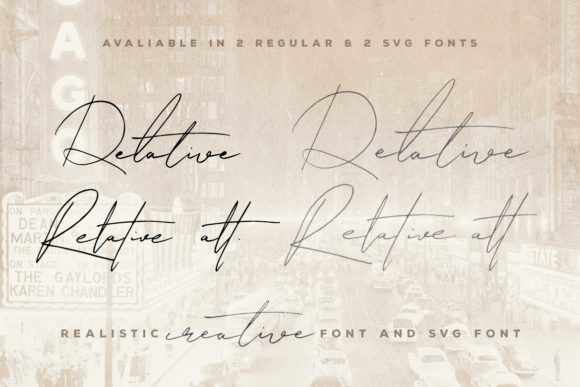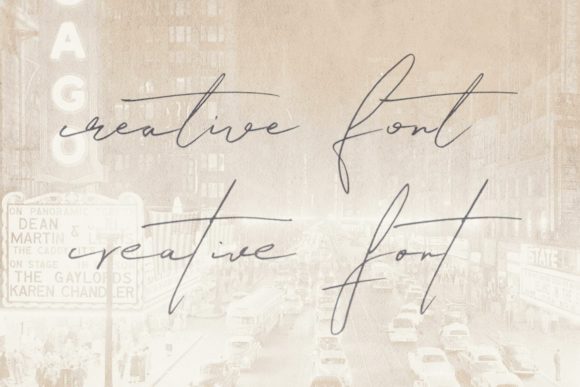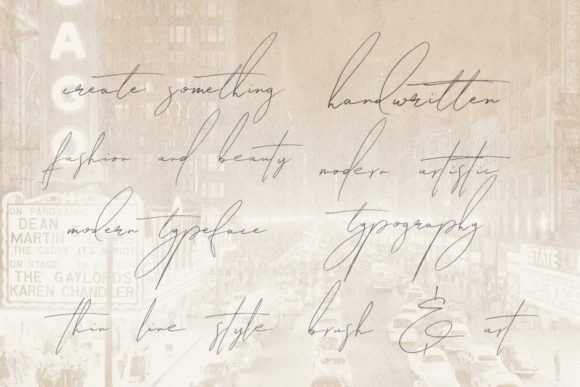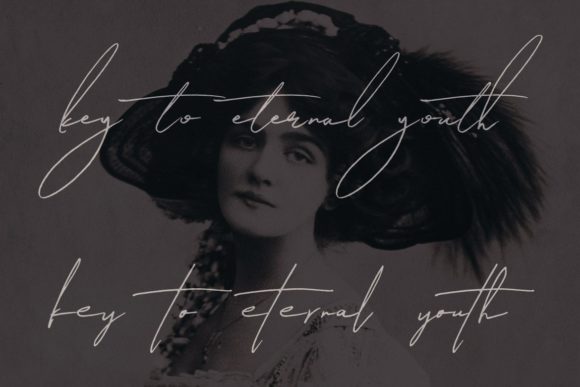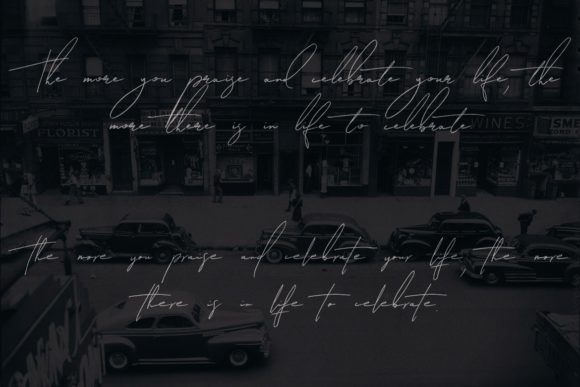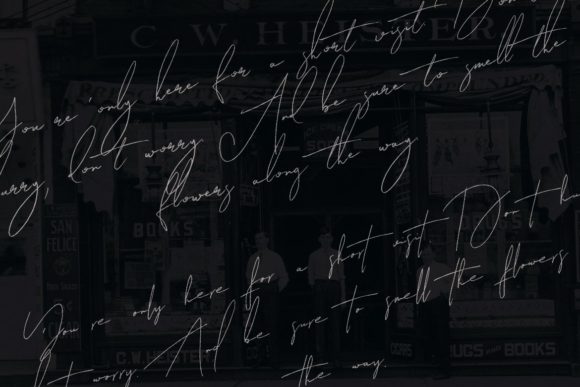
Introduction to Relative Font
As a designer, have you ever found yourself staring at a blank canvas, searching for that perfect touch to bring your creative project to life? The right font can make all the difference, and that’s where Relative Font comes in – a stunning handwritten font that’s sure to elevate your design game.
With its light feel and effortless charm, Relative Font is the perfect addition to any design resource. Whether you’re working on a free download or a high-end commercial project, this versatile font is sure to add a contemporary twist that will leave your audience in awe.
Key Features of Relative Font
- High-quality, vector-based design with transparent background, ideal for creative projects
- Resolution-independent vector design, suitable for use at any size without compromising quality
- Unique, hand-drawn style that adds a touch of personality to any design, perfect for creative projects
- High-resolution design (up to 300 DPI), ensuring crisp and clear details in print and digital applications
- Easy to customize and edit, allowing for seamless integration into your design workflow
Honest Review: Relative Font
As a designer, I’m always on the lookout for high-quality design resources to elevate my creative projects. Relative Font caught my attention, and I’m excited to share my thoughts on this font.
- Unique design: Relative Font boasts a distinct and modern style that can add a touch of sophistication to any design project.
- High-quality typography: The font is well-crafted, with crisp lines and smooth curves that make it perfect for digital use.
- Transparent background: This feature is a game-changer for designers who want to create seamless designs with a clear background.
- Limited character set: Relative Font has a limited character set, which may not be suitable for projects that require a wide range of characters.
- No support for Asian characters: Unfortunately, Relative Font does not support Asian characters, which may be a limitation for designers working on international projects.
Overall, I’m impressed with Relative Font’s unique design and high-quality typography. While it may have some limitations, it’s a great resource for designers who want to add a touch of modernity to their creative projects. Whether you’re working on a free project or need a font for a design resource, Relative Font is definitely worth considering.
Relative Font
To get the most out of the Relative Font, experiment with different font sizes, colors, and combinations. This will help you find the perfect balance for your design. Additionally, consider using the font in conjunction with other design elements to create a cohesive look.
The Relative Font is perfect for a variety of creative projects, including graphic design, digital art, and print design. Its unique design and high-quality look make it an ideal choice for presentations, documents, and marketing materials.